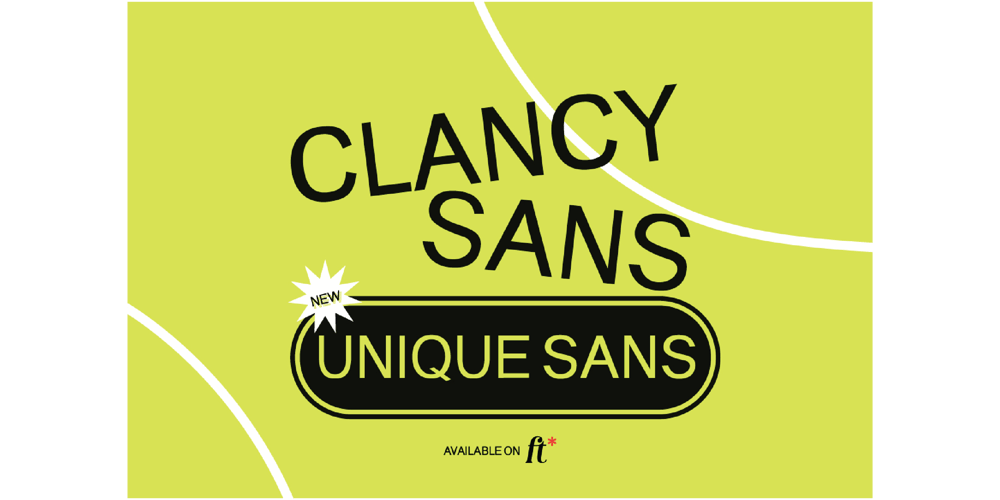
Clancy Unique Sans
Clancy Unique Sans font
Clancy Unique Sans Font Family was designed by Adrian Syauqi and published by Firstype Studio. Clancy Unique Sans contains 1 styles and family package options. Introducing Clancy, a sleek sans-serif font that effortlessly blends modern simplicity with unique headline-worthy characteristics. This versatile font is designed for those seeking a contemporary typeface that excels in both body text and eye-catching headlines. Clancy is available in multiple licensing options to accommodate various design needs.Modern Simplicity:Clancy’s clean and minimalist design makes it a perfect choice for modern design projects. Its simplicity ensures readability, making it suitable for a wide range of applications.Ideal for Body Text and Headlines:Clancy’s versatility shines through in its ability to serve as both body text and headline font. Whether you need to convey information clearly or make a statement with a captivating headline, Clancy delivers.Unique Headline Appeal:What sets Clancy apart is its unique headline-worthy characteristics. Its distinct letterforms add a touch of personality to your headlines, making them stand out and leave a lasting impression.Multiple Licensing Options:We understand that different projects come with different licensing requirements. That’s why Clancy is available in various licensing options, including personal, commercial, and extended licenses. Choose the one that suits your specific project.Elevate Your Typography:With Clancy, you’re not just selecting a font; you’re elevating your typography game. Its blend of modern simplicity and unique headline appeal ensures that your designs are both functional and visually engaging.Choose Your License:Explore our licensing options and select the one that aligns with your project’s needs. Whether you’re a designer, business owner, or creative enthusiast, Clancy has a license that fits your requirements.Upgrade Your Designs with Clancy – Where Modern Simplicity Meets Unique Headline Charm.This description highlights the modern simplicity and unique headline appeal of the “Clancy” sans-serif font, along with its versatility for body text. It also emphasizes the availability of multiple licensing options to cater to different users.